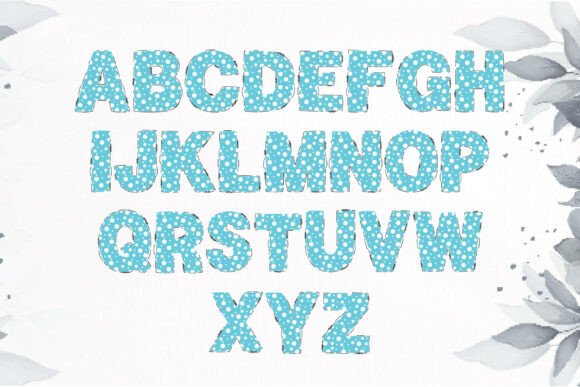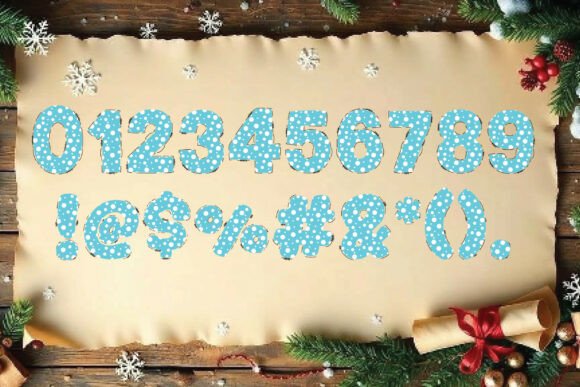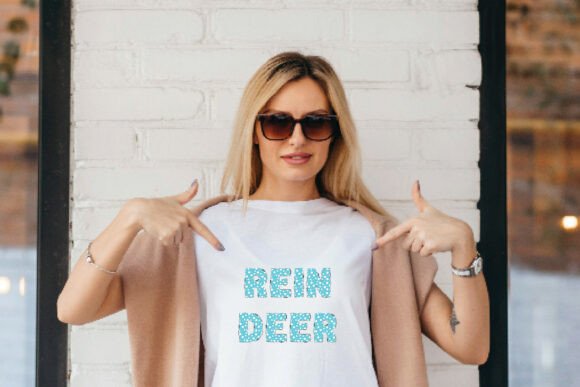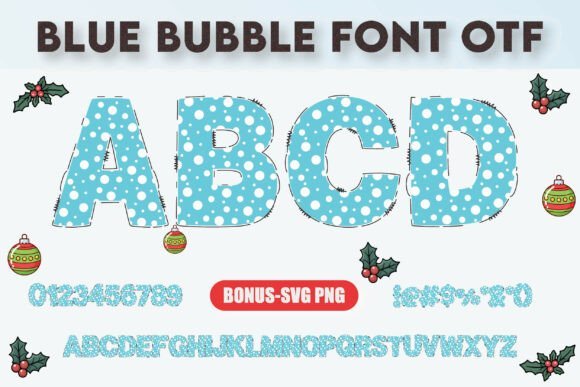
Introduction to Blue Bubble Font
Add a bright, cheerful, and playful look to your designs with the Blue Bubble font, featuring smooth, rounded bubble-style letters in a vibrant blue tone.
This friendly and eye-catching typeface is perfect for kids’ projects, posters, stickers, classroom dΓ©cor, invitations, party designs, branding, and fun digital artwork, making it ideal for both print and digital creations Included in this package are the A–Z uppercase and lowercase letters, numbers 0–9, and common symbols, provided as 1 premium OTF font file with crystal-clear, print-ready quality.
Key Features of Blue Bubble Font
Why Choose Blue Bubble Font?
Blue Bubble Font offers exceptional quality and versatility, making it a valuable addition to your design toolkit. Whether you’re creating for personal projects or commercial use, Blue Bubble Font delivers professional results.